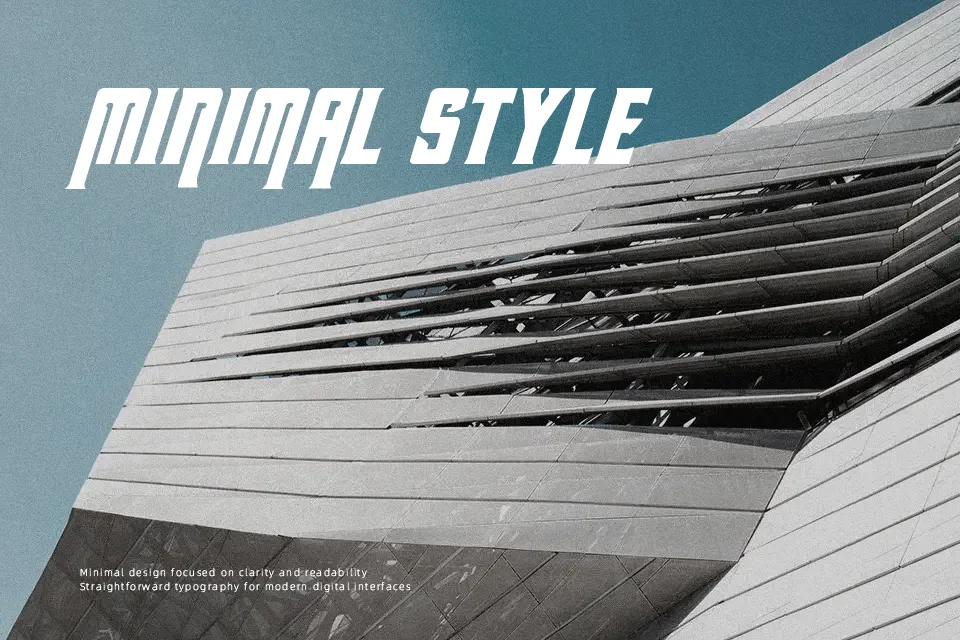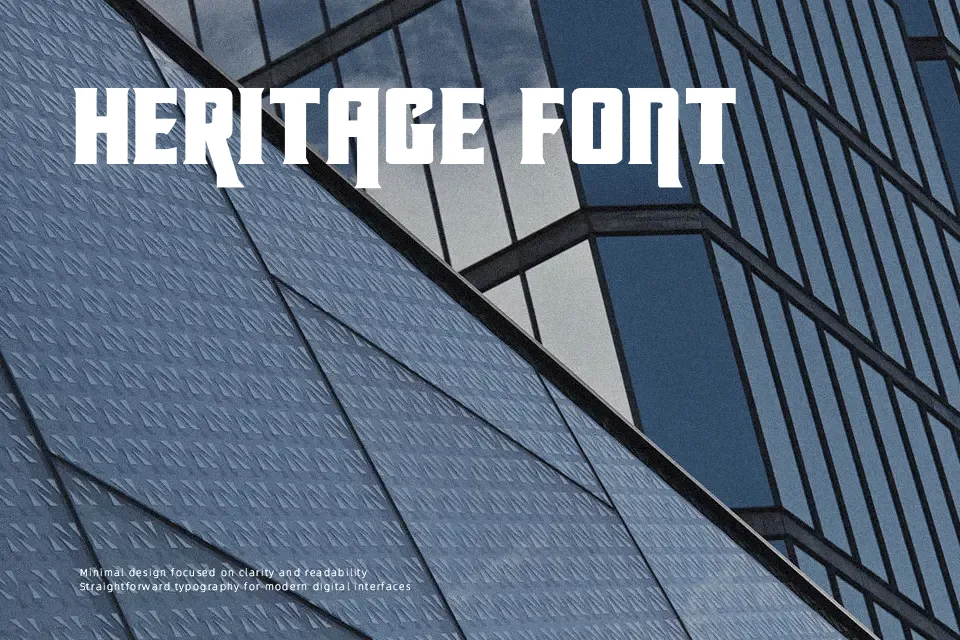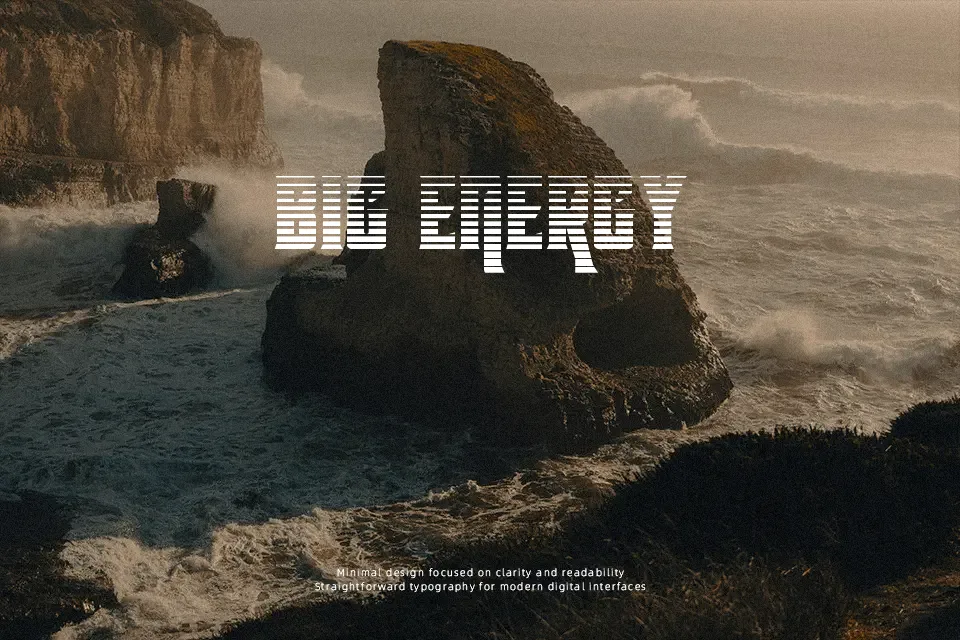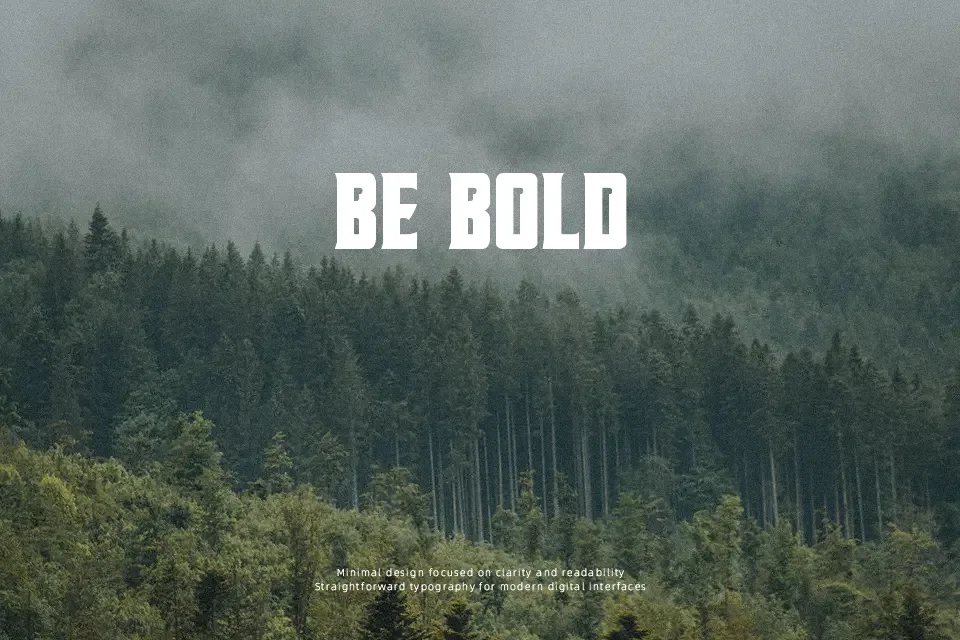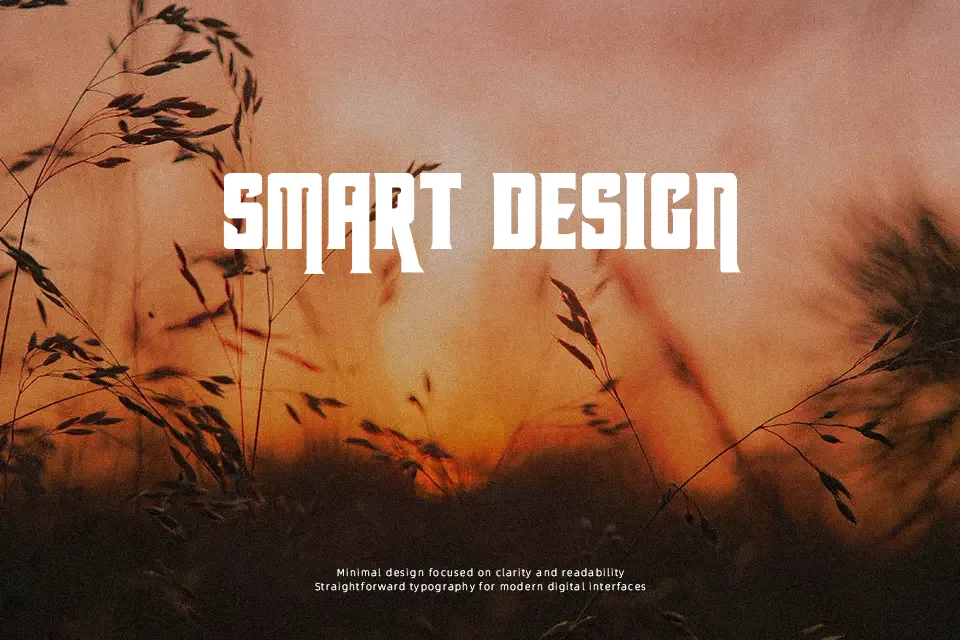
Kondor Font
Kondor Font stands out with rigid strokes, angular cuts, and tight spacing that create a dense, commanding visual block. The letterforms lean toward a structured display style, giving off a slightly industrial and assertive tone. It performs well in large-scale uses like event posters, album covers, or bold branding where impact matters more than readability. However, its heavy construction can reduce clarity at smaller sizes, making it less practical for body text or detailed interfaces. It works best when used sparingly, where visual strength is the priority over versatility.
poster headlines
music cover artwork
brand logos with strong identity
small-size UI elements